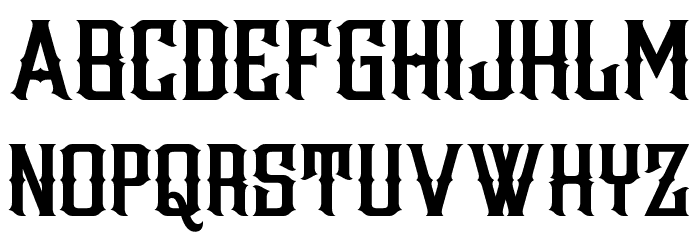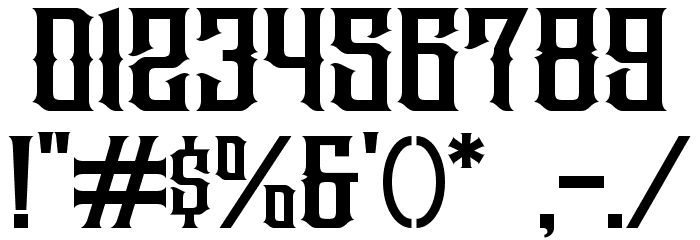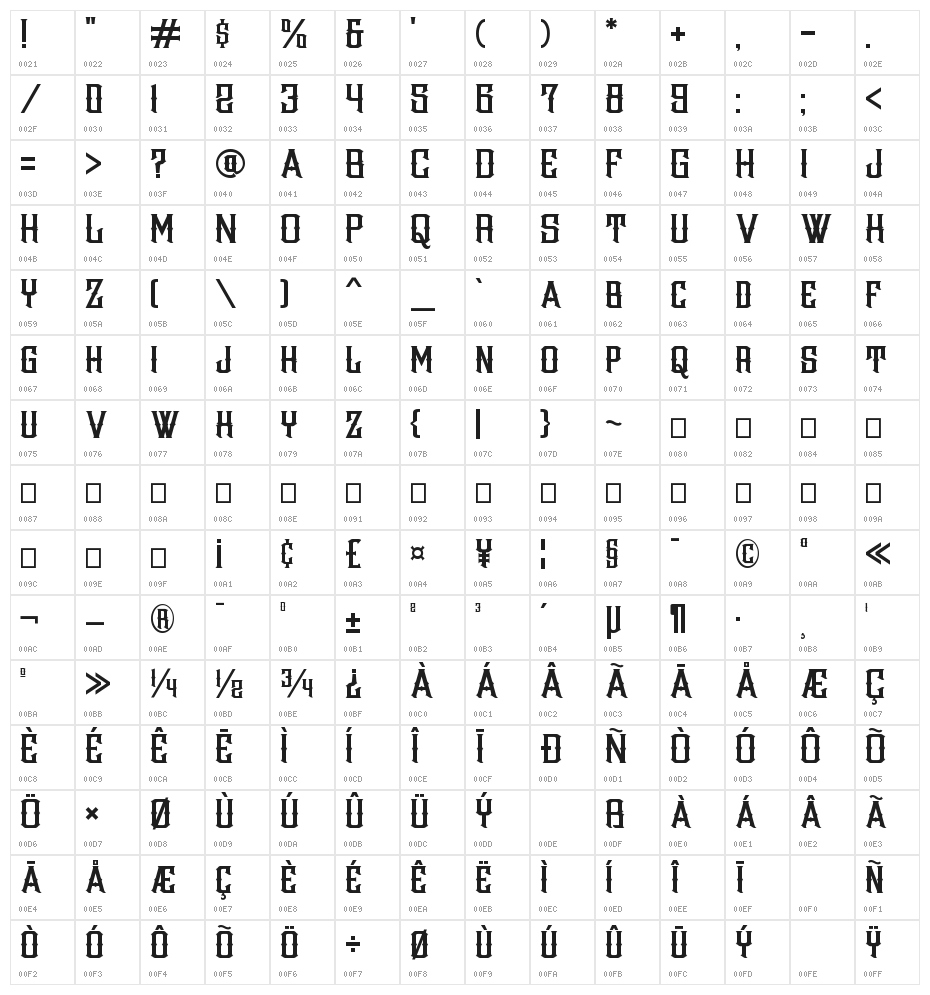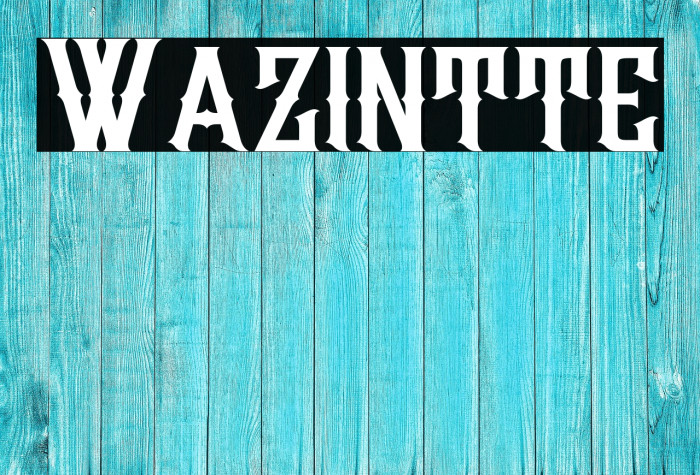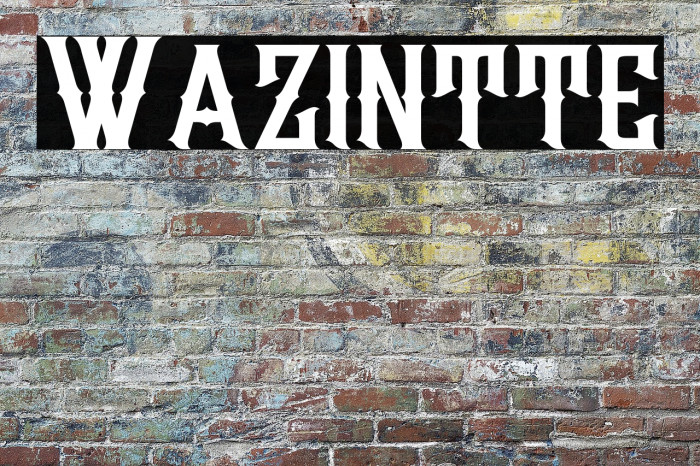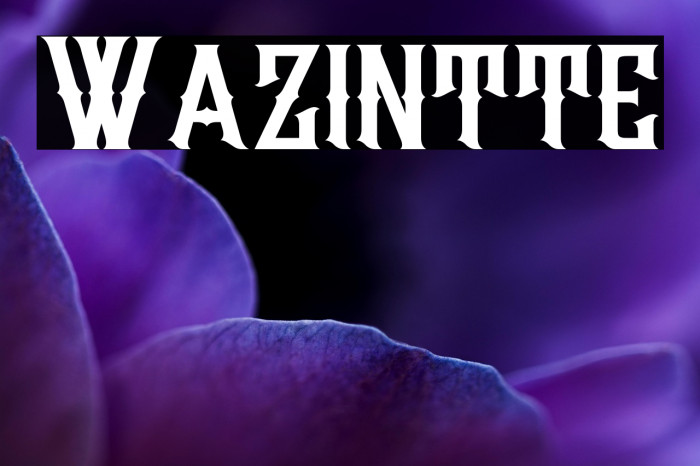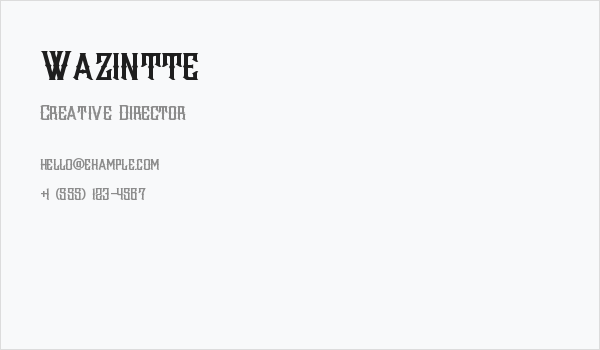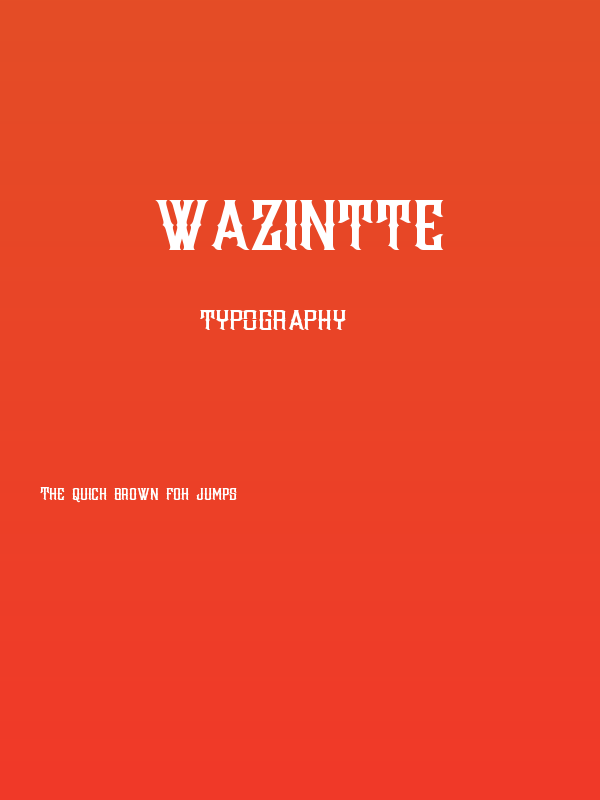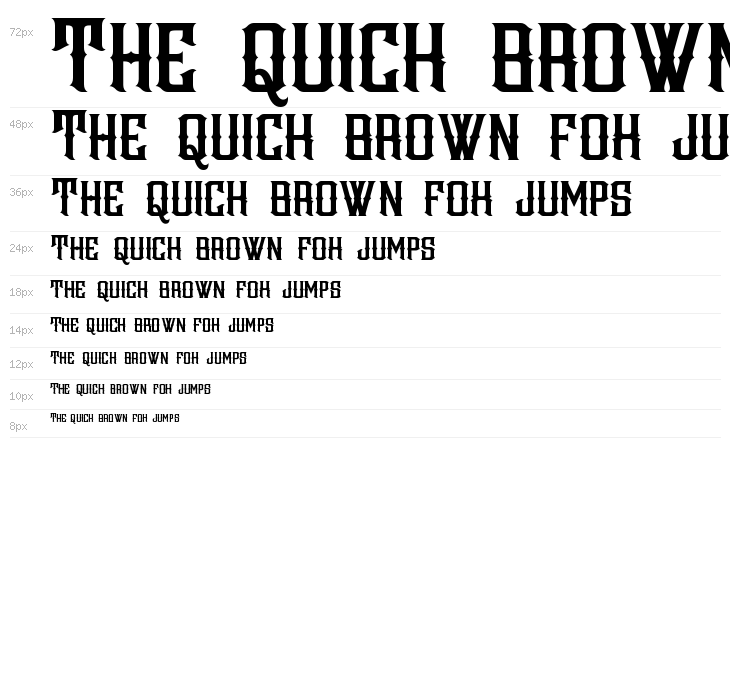
Wazintte Font
This font features a bold and striking design with sharp, angular edges and a distinct Gothic influence. The uppercase letters are tall and imposing, with intricate details that give them a medieval feel. The lowercase letters maintain the same stylistic elements, ensuring consistency throughout the typeface. Numbers and special characters are equally bold, with a strong presence that commands attention. The overall design is reminiscent of traditional blackletter fonts, yet it incorporates modern elements that make it suitable for contemporary use.
A bold, Gothic-inspired font with sharp, angular edges and a medieval feel.
- Proposed Projects: Ideal for projects that require a dramatic and historical touch, such as event posters, book covers, or branding for music bands.